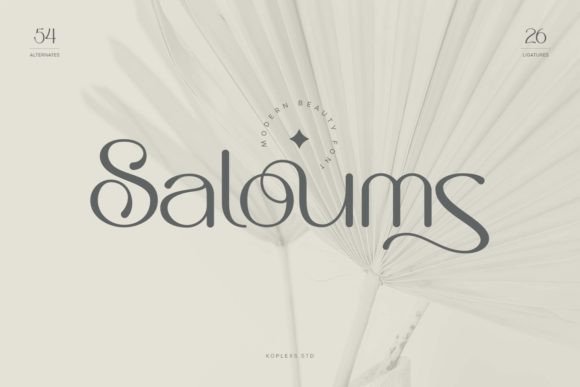
Saloums Font: The Epitome of Sophistication and Grace in a Modern Serif World
In the realm of typography, there exists a font that transcends the boundaries of ordinary, captivating hearts with its allure and leaving an indelible mark on the world of design. Saloums Font, the brainchild of Koplexs Studio, is an exquisite creation that embodies the essence of modernity and class, leaving an everlasting impression with its charm and sophistication.
Immerse yourself in a sensory journey as you explore the depths of this extraordinary serif font. Its meticulously crafted characters dance across the digital canvas, evoking emotions and igniting imaginations. Saloums is not merely a font; it's an experience that transports you to a world of elegance and refinement.
Whether you're a seasoned designer or just beginning your creative journey, Saloums Font is the perfect companion for your artistic endeavors. With its inherent versatility, it effortlessly adapts to a myriad of design projects, from logos that exude authority to book covers that radiate sophistication. Unleash your creativity and witness the transformation of your designs into masterpieces.
Step into the realm of fashion and let Saloums Font elevate your creations to new heights. Its delicate strokes and timeless appeal make it the ideal choice for fashion magazines that seek to capture the essence of luxury and style. Dive into the world of perfumes and discover how Saloums Font adds a touch of allure and intrigue to your branding, enticing customers with its captivating aura.
Saloums Font possesses a captivating array of decorative characters that add a touch of whimsy and charm to your designs. From playful swashes to intricate flourishes, these elements elevate your work, transforming it into a visual symphony that commands attention and captivates the senses.
With Saloums Font, you're not just downloading a font; you're acquiring a treasure trove of creative possibilities. Its versatility extends beyond traditional design realms, making it an ideal choice for invitations that exude elegance and leave a lasting impression. Whether it's a wedding, a corporate event, or a social gathering, Saloums Font sets the tone and creates an atmosphere of sophistication and grace.